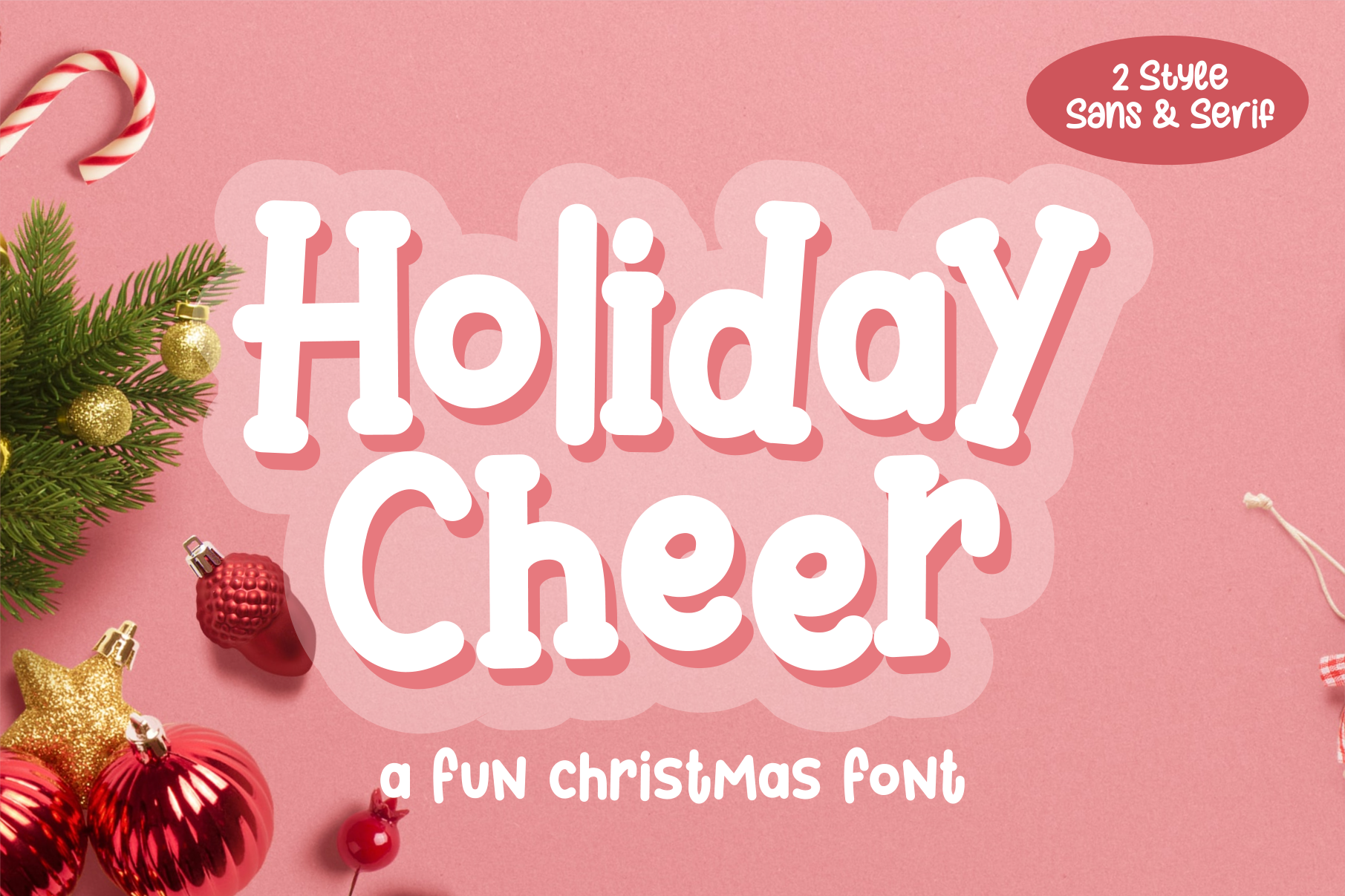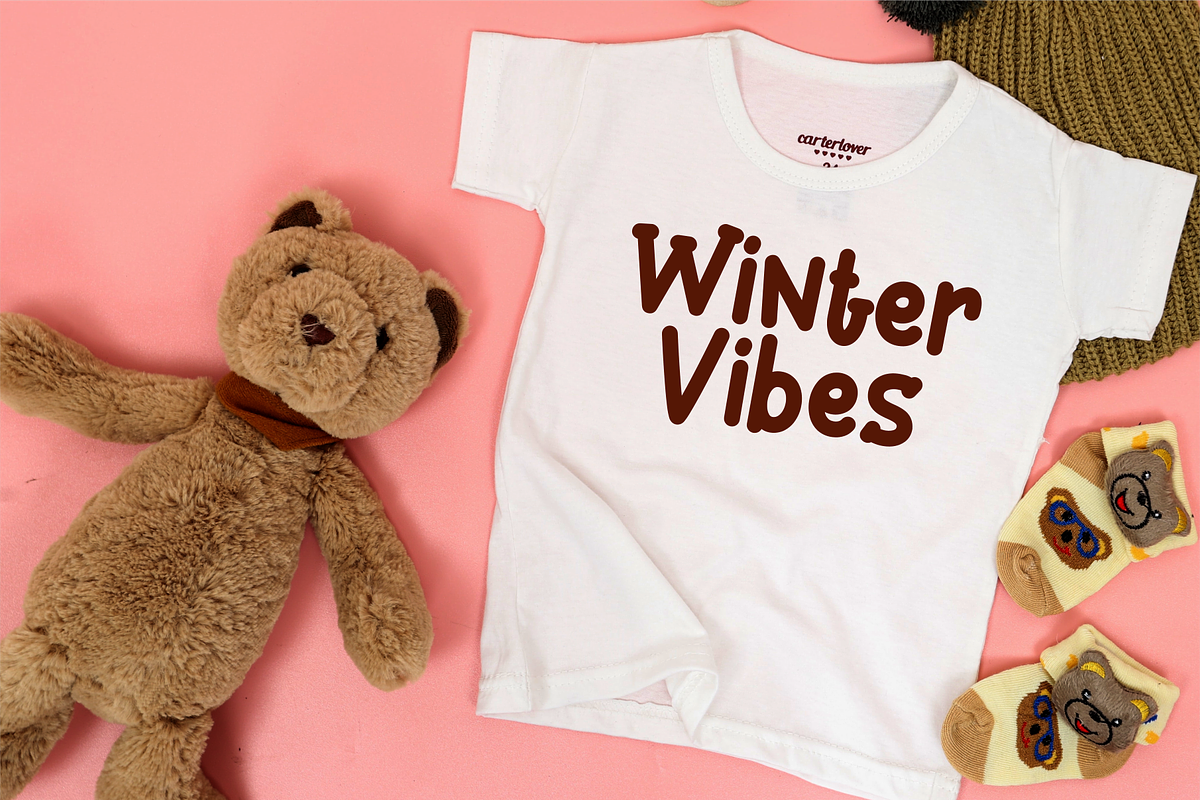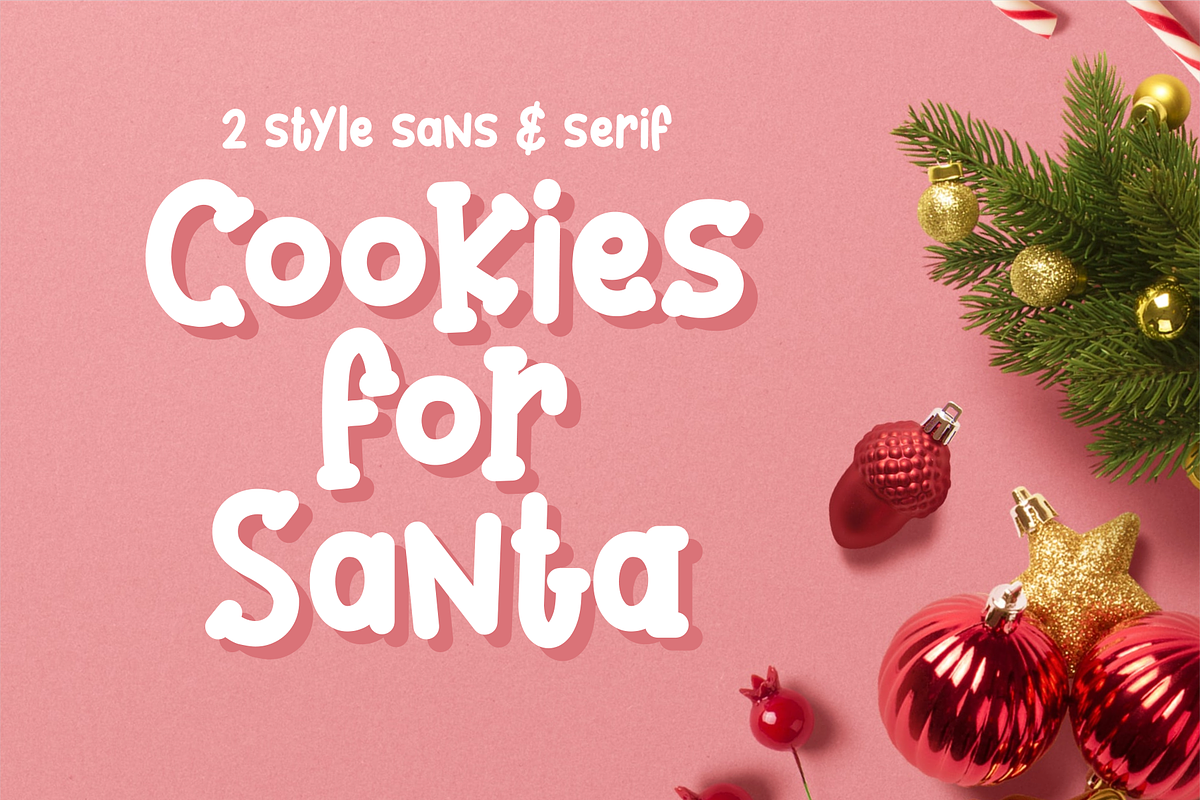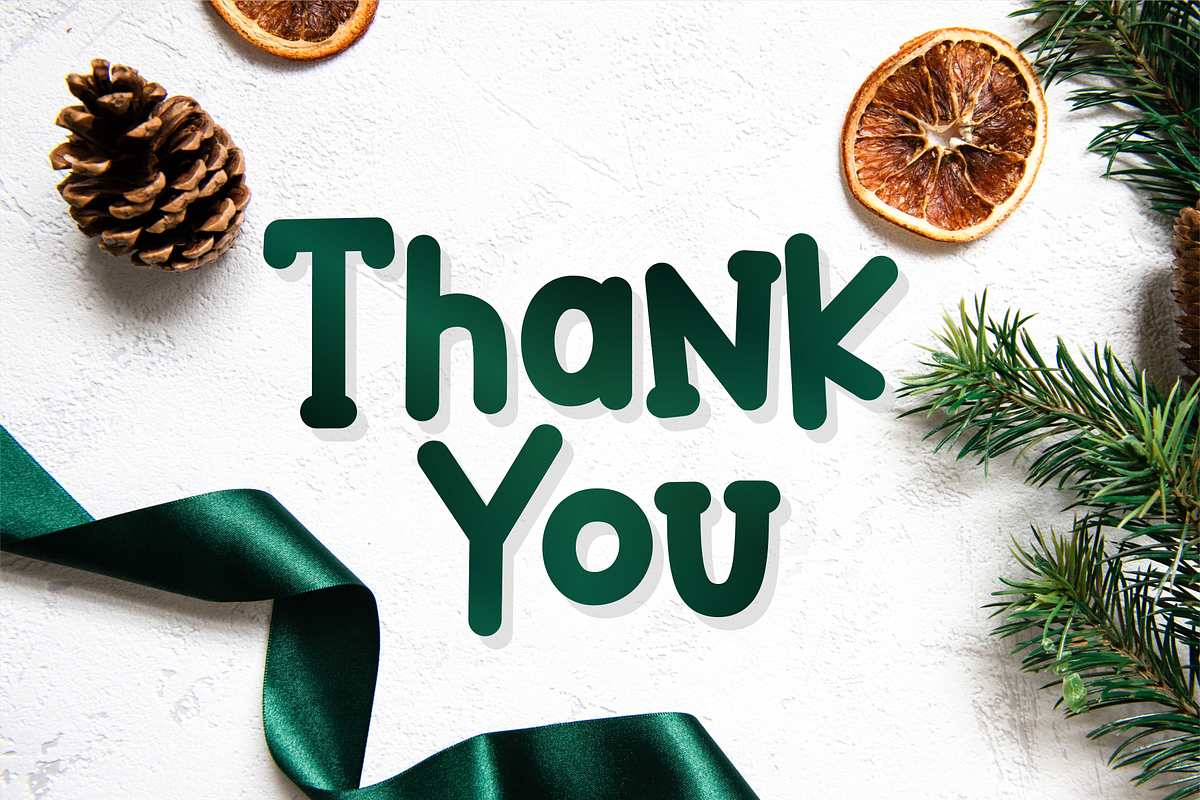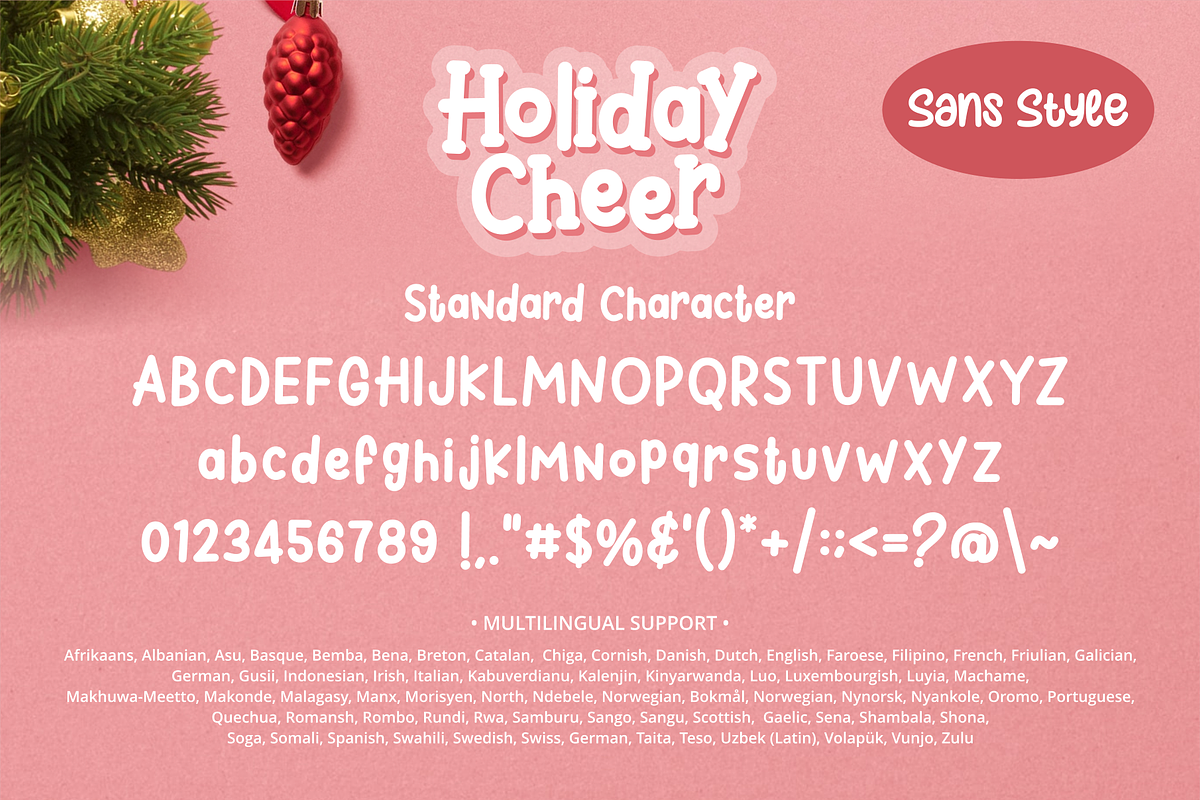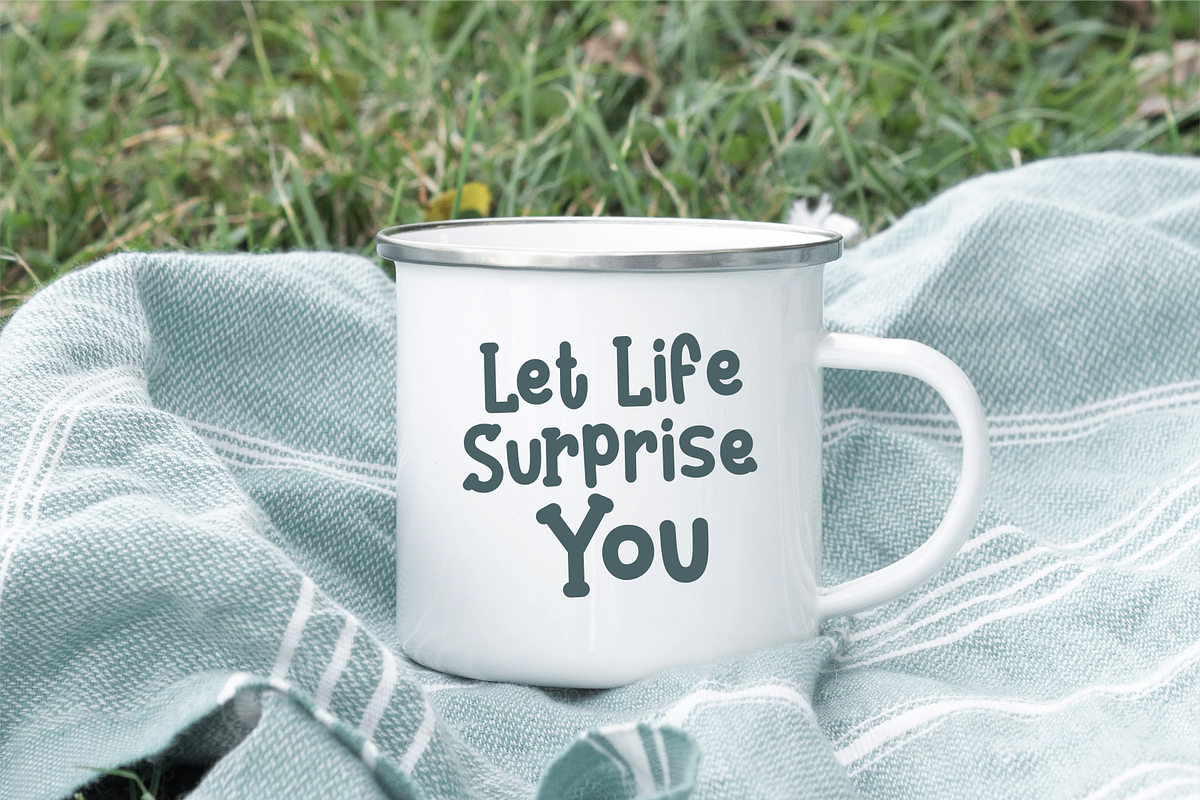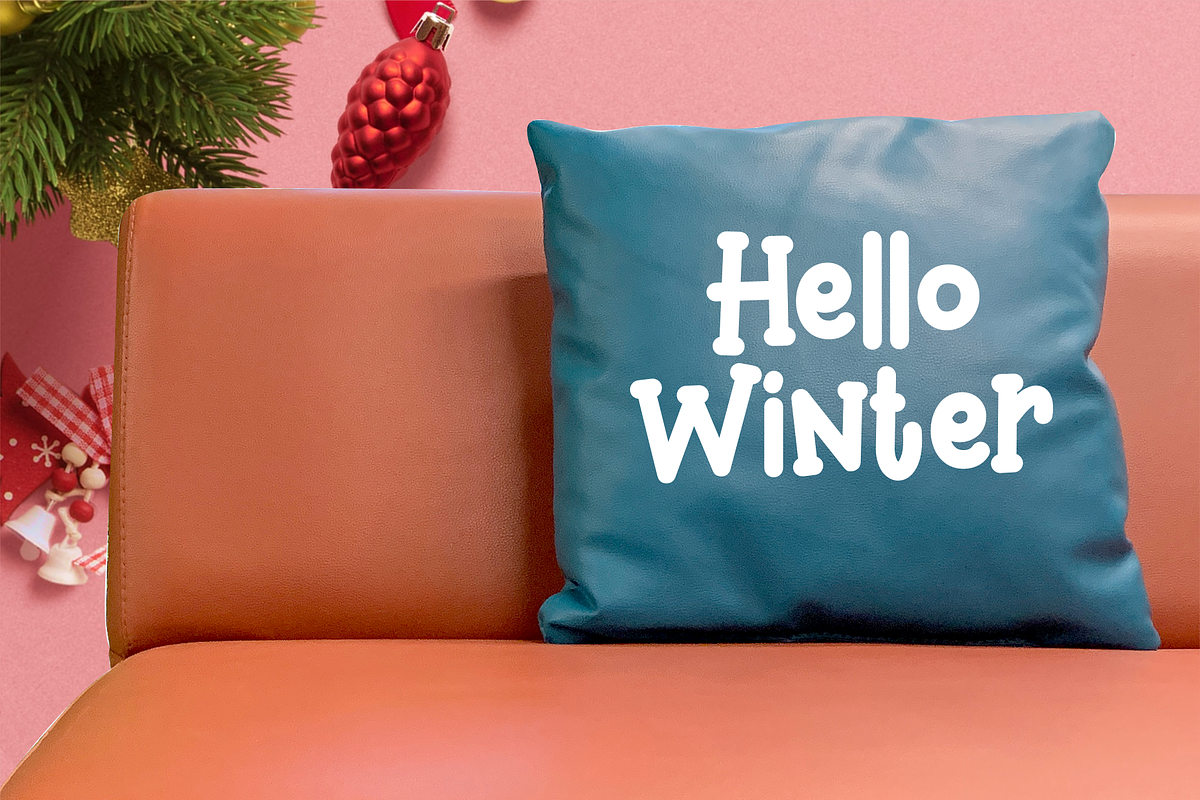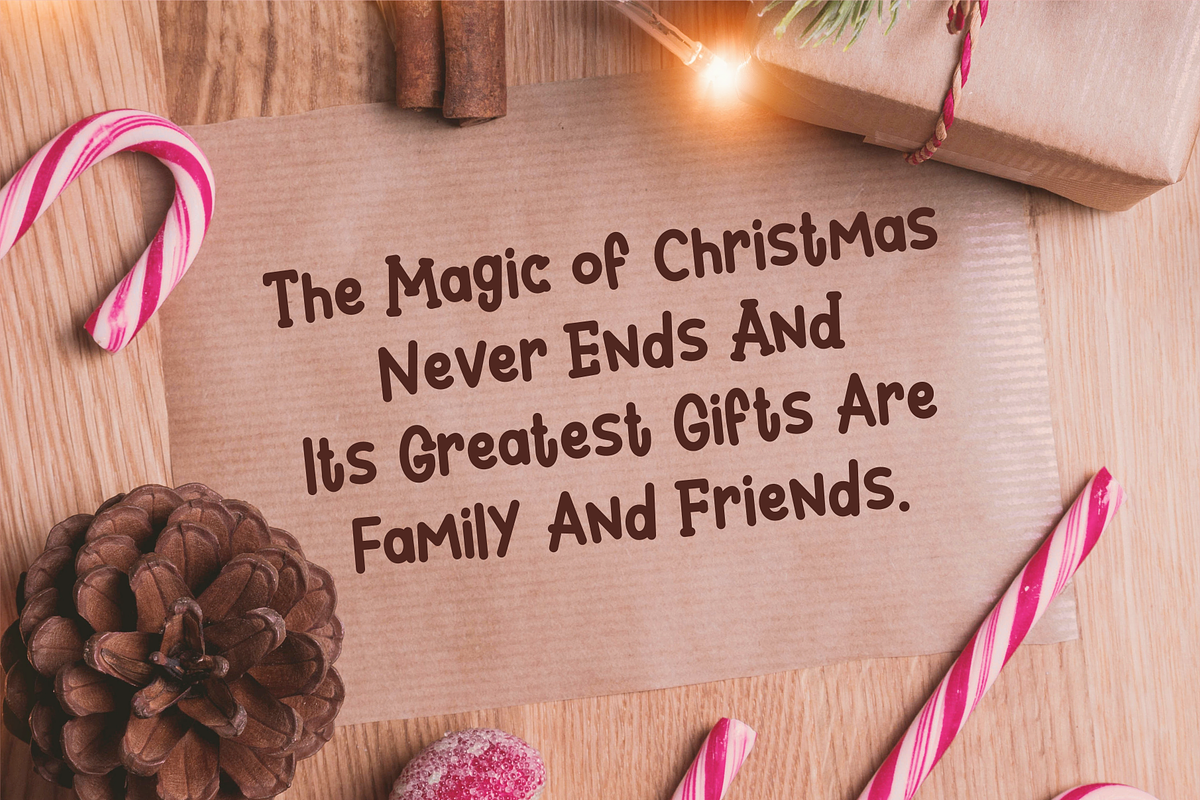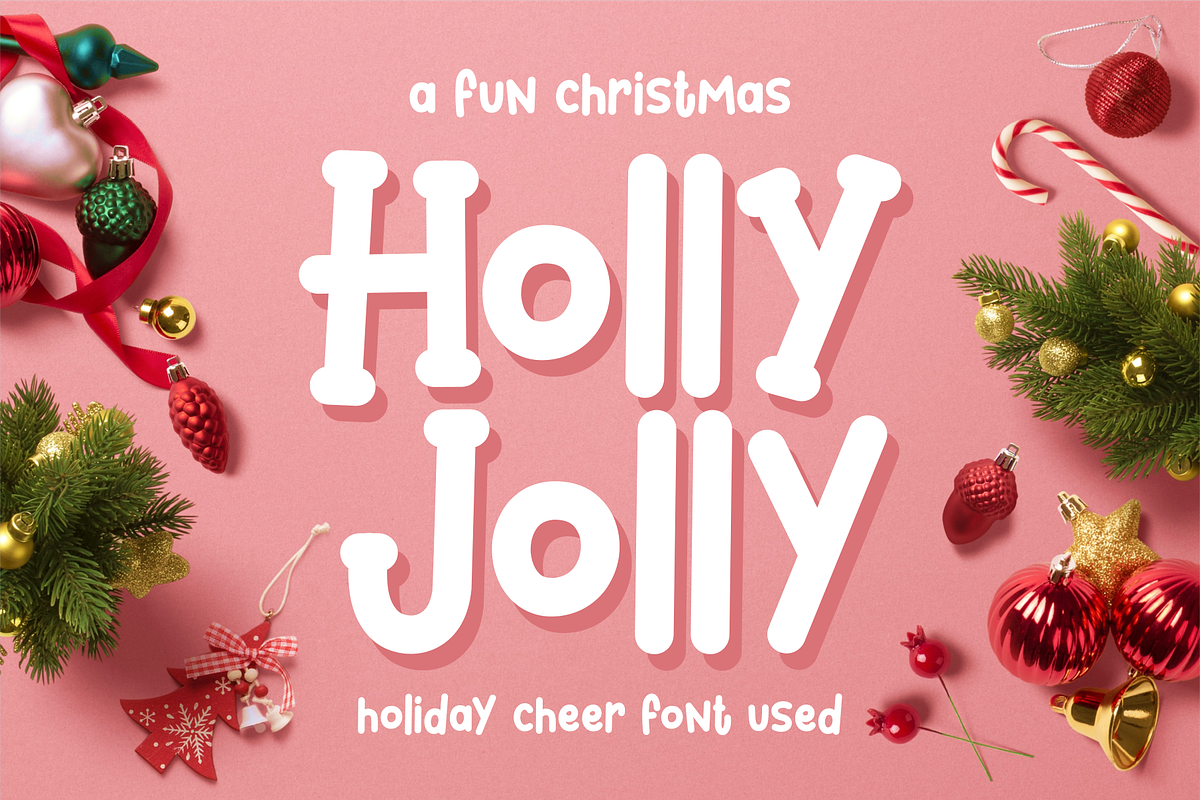
Holiday Cheer Font
Holiday Cheer is a simple and uniquely designed display font. Its fun style and casual feel will make this font a top choice for any creation that requires a casual, urban touch.